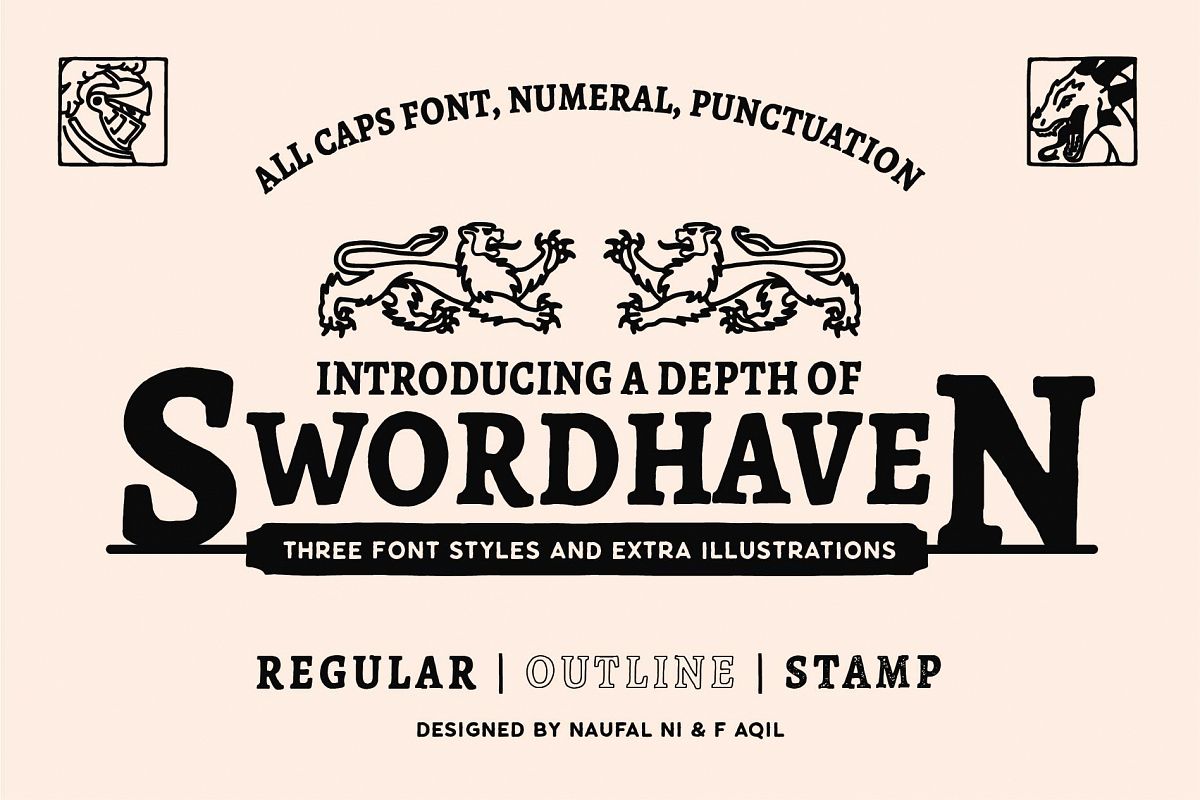
SWORDHAVENEN Font
INTRODUCINGSWORDHAVEN font. Is a font inspired by medieval era. Comes with three styles regular, outline and stamp style. Very gorgeous in logo work as well as web headings and printed materials. Also you will get some themed illustrations about medieval era. Have a nice day!